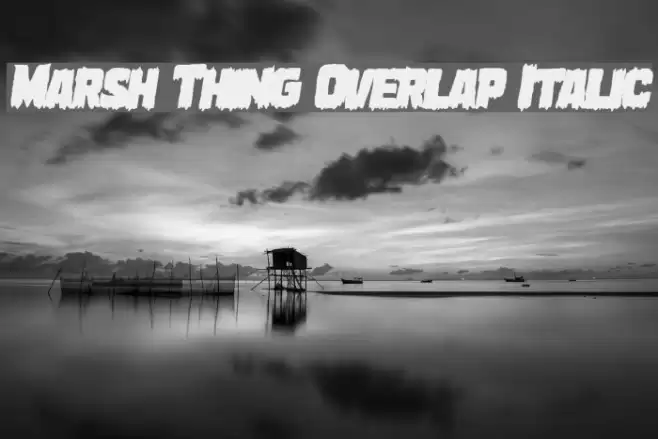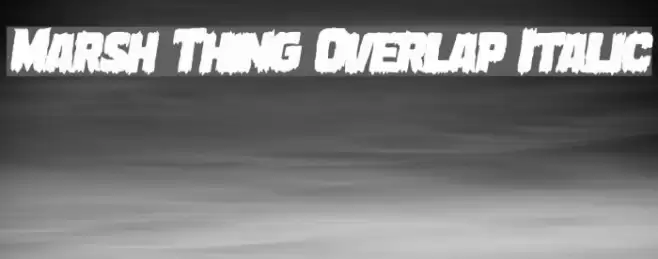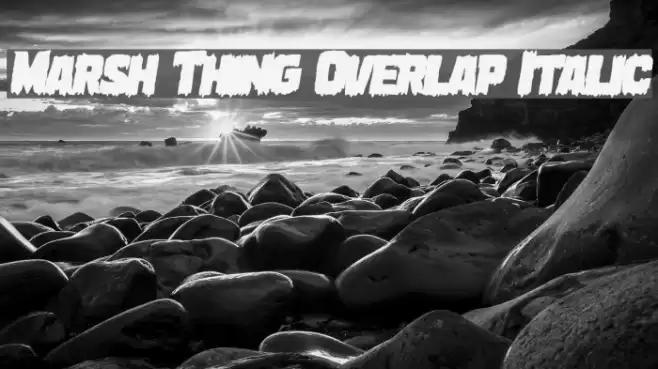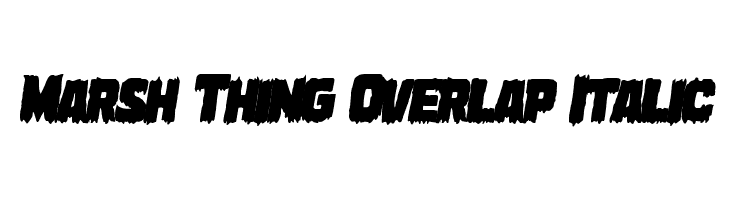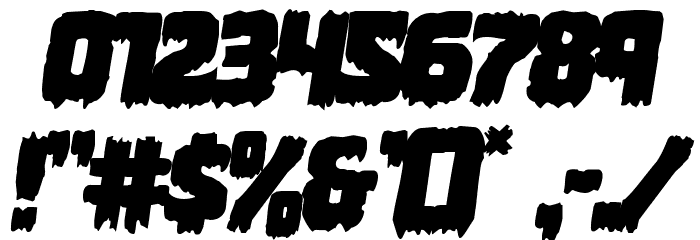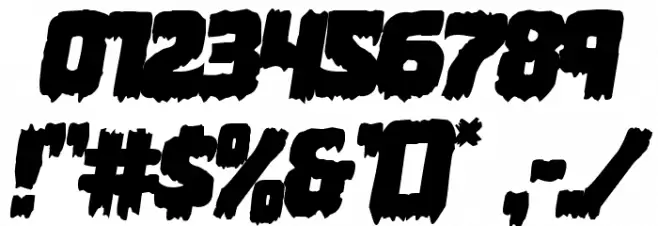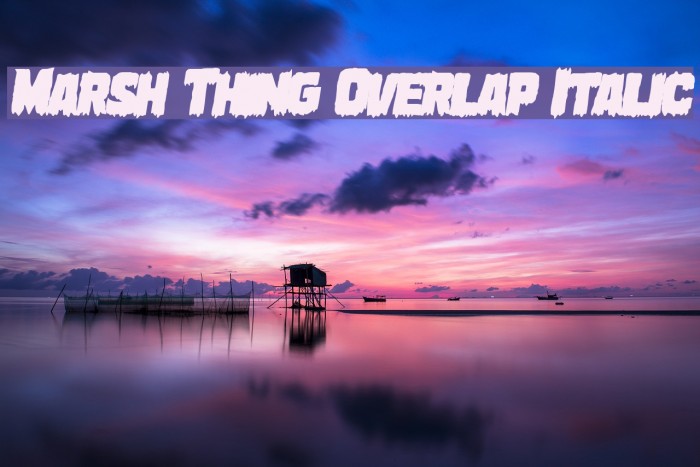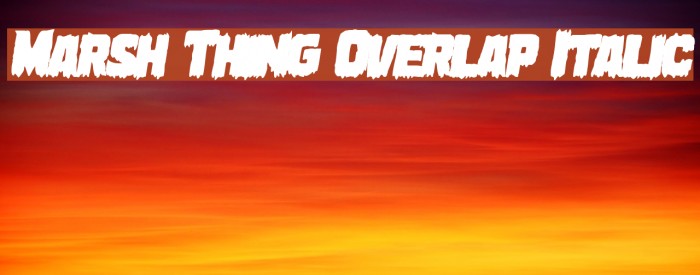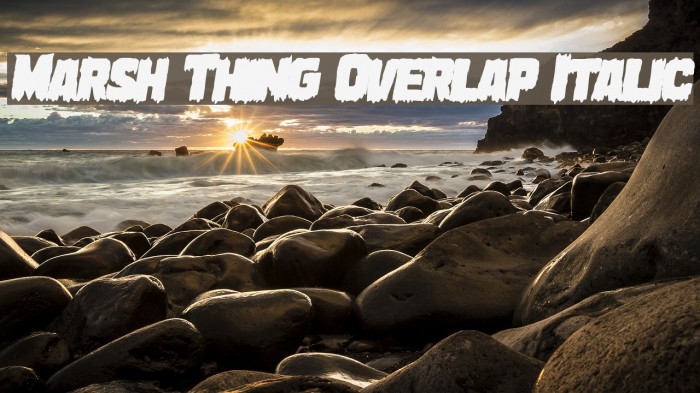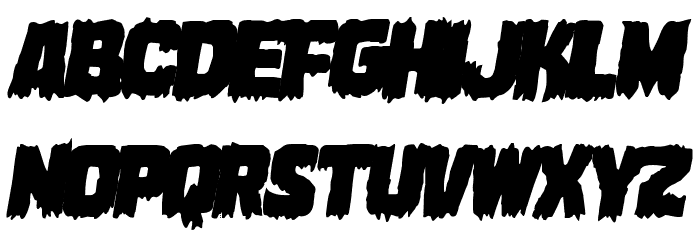
Marsh Thing Overlap Italic Font
Marsh Thing Overlap Italic Description
This font features a bold and rugged design with a distinct italic slant, giving it a dynamic and energetic appearance. The characters are heavily stylized with rough, jagged edges that create a sense of movement and intensity. The uppercase and lowercase letters maintain a consistent style, with wide strokes and a slightly condensed form. Numbers and special characters follow the same bold and aggressive aesthetic, making the font suitable for impactful and attention-grabbing designs. The overall look is reminiscent of a horror or thriller theme, with a chaotic yet controlled presentation.
A bold, italic font with rugged, jagged edges and a dynamic, energetic style from Horror fonts.
- Proposed Projects: Ideal for horror movie posters, Halloween event flyers, edgy branding, and video game titles.
- Character Spacing: Tight